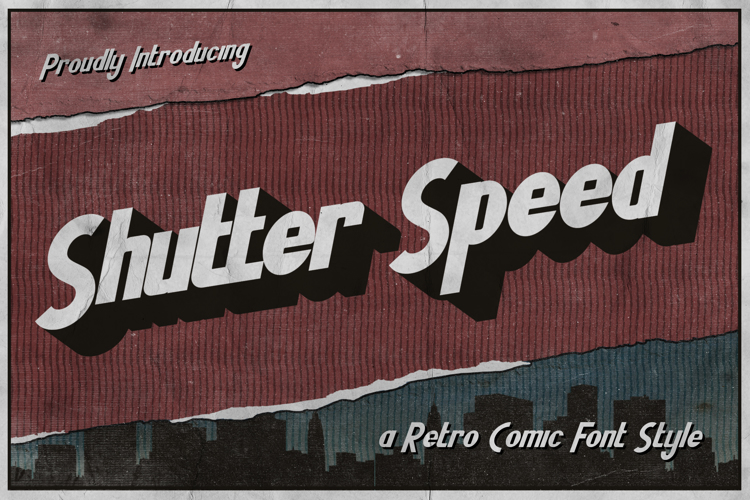
Shutter Speed Trial Font
About Shutter Speed Trial Font
Shutter Speed is a sweet and simple comic font with a retro style.
Get inspired by its unique charm, and turn any design project into a true standout!